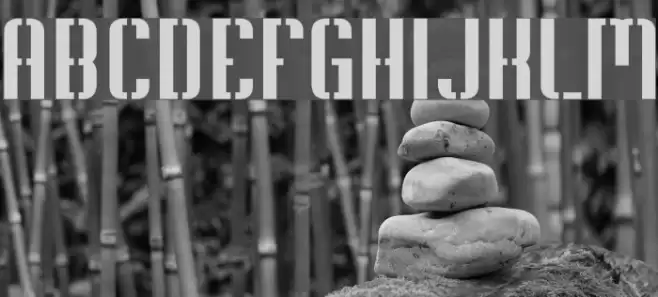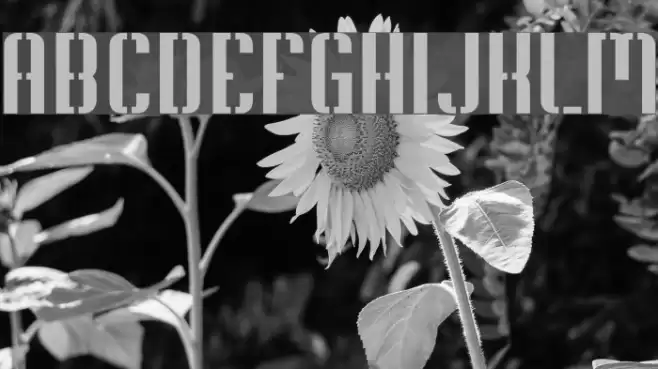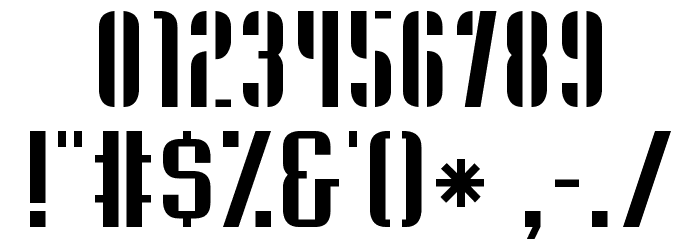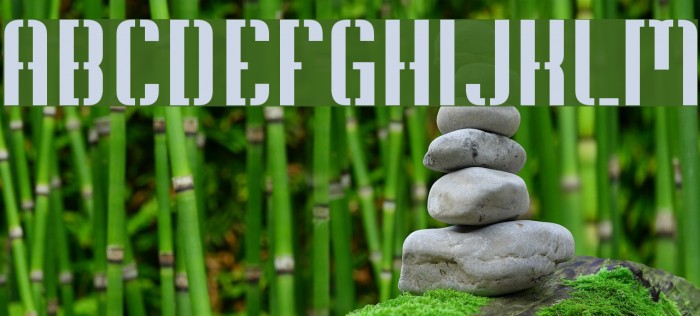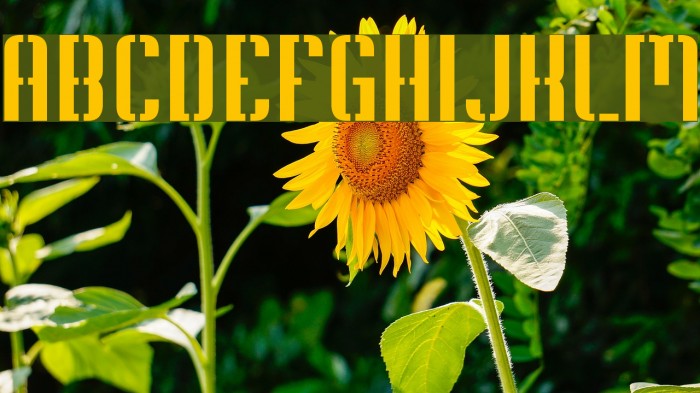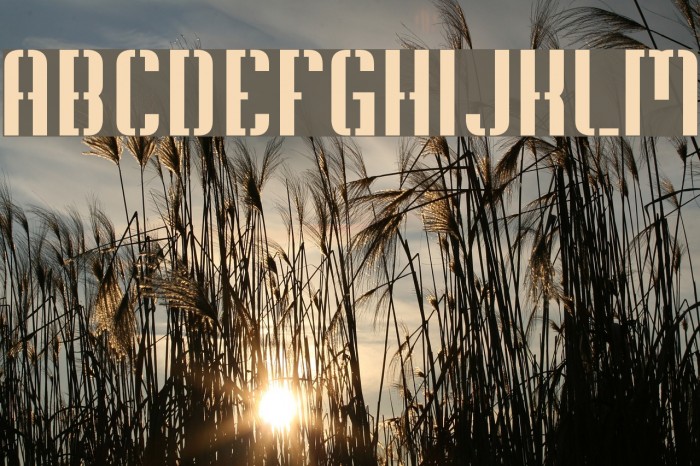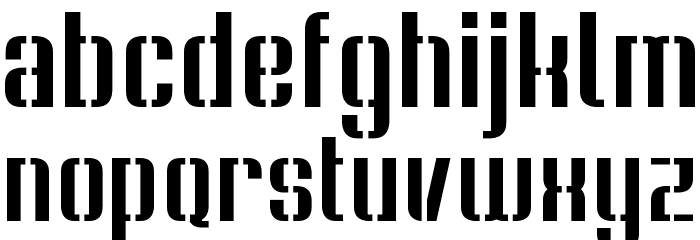
Soupertrouper Stencil Font
Soupertrouper Stencil Description
This font features a bold, stencil-like design with distinct cutouts in each character, creating a striking and industrial appearance. The uppercase and lowercase letters maintain a consistent width, contributing to a uniform and balanced look. The numbers and special characters follow the same stencil style, ensuring cohesion across all elements. The font's geometric shapes and clean lines make it highly legible, even at smaller sizes. Its unique style is reminiscent of military or industrial signage, making it ideal for projects that require a strong visual impact.
A bold, stencil-style font with geometric shapes and clean lines from Uncategorized fonts.
- Proposed Projects: Ideal for posters, signage, branding, and any project needing a bold, industrial look.
- Overall Style: Industrial, Modern